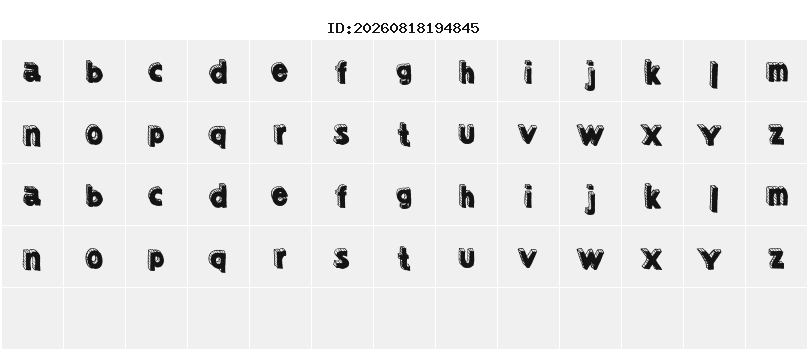
Sketched 3d DEMO by Marta van E Preview
• Font Name: Sketched 3d DEMO by Marta van E
• Version: Version 1.00 June 25, 2016, initial release
• Designer: Marta Waniek
About Sketched 3d DEMO by Marta van E.otf
Sketched 3d DEMO by Marta van E.otf is a modern, elegant sans-serif font designed for ultimate readability and visual harmony. Perfect for branding, headlines, web design, and print materials.